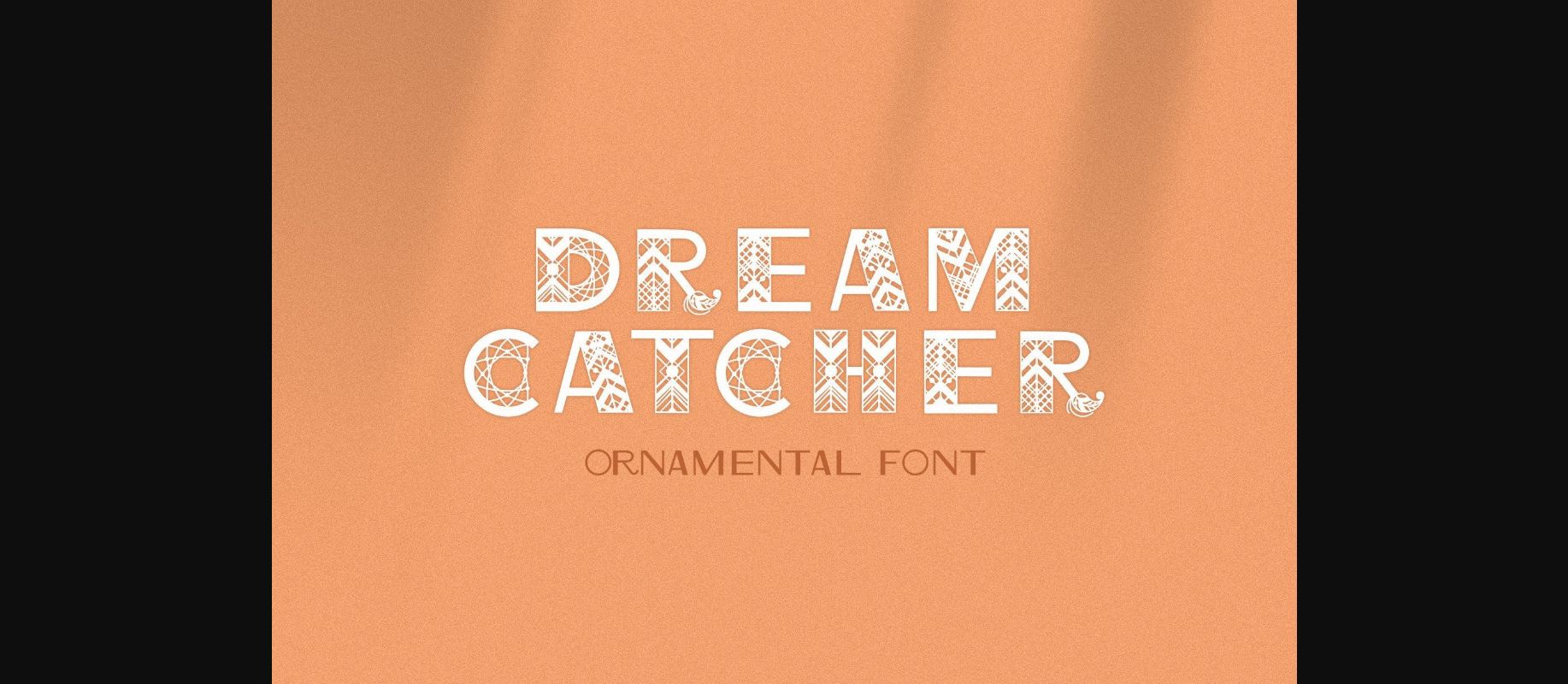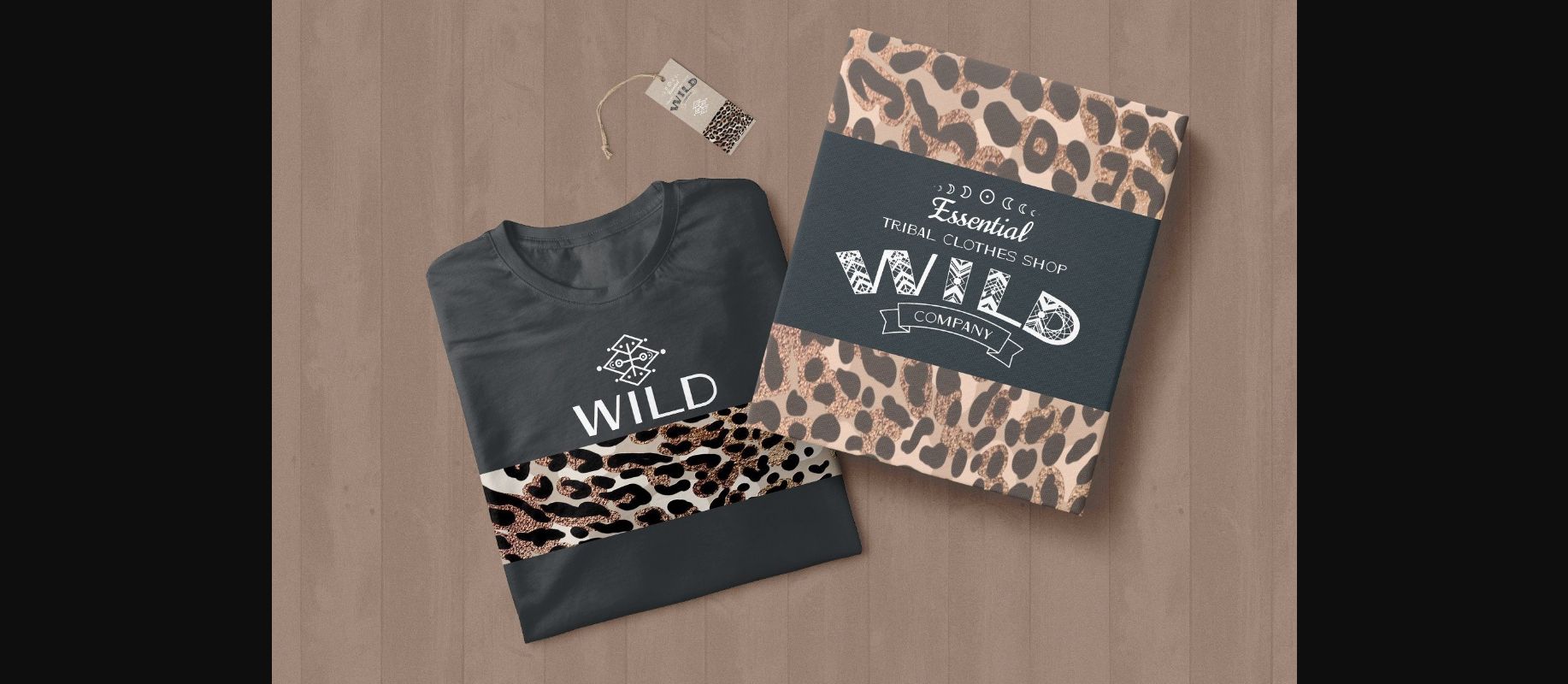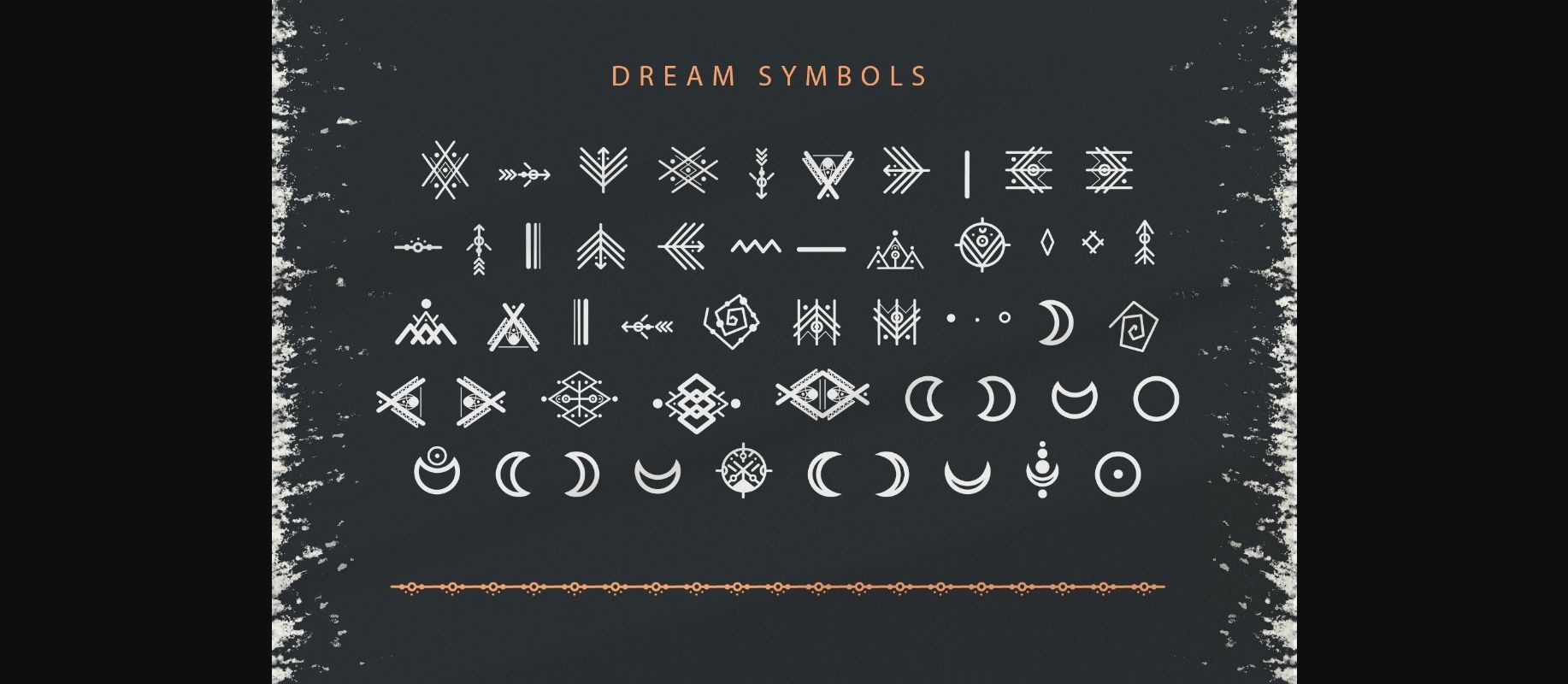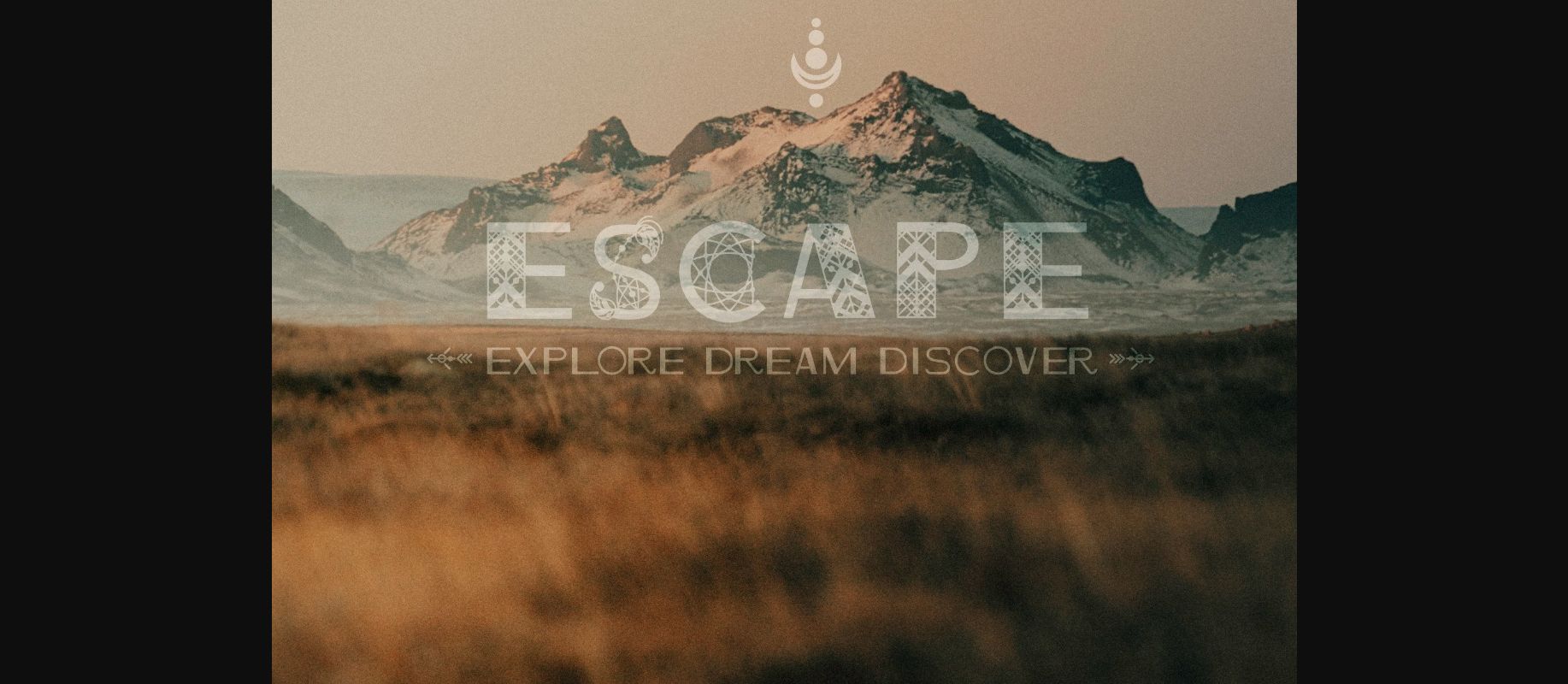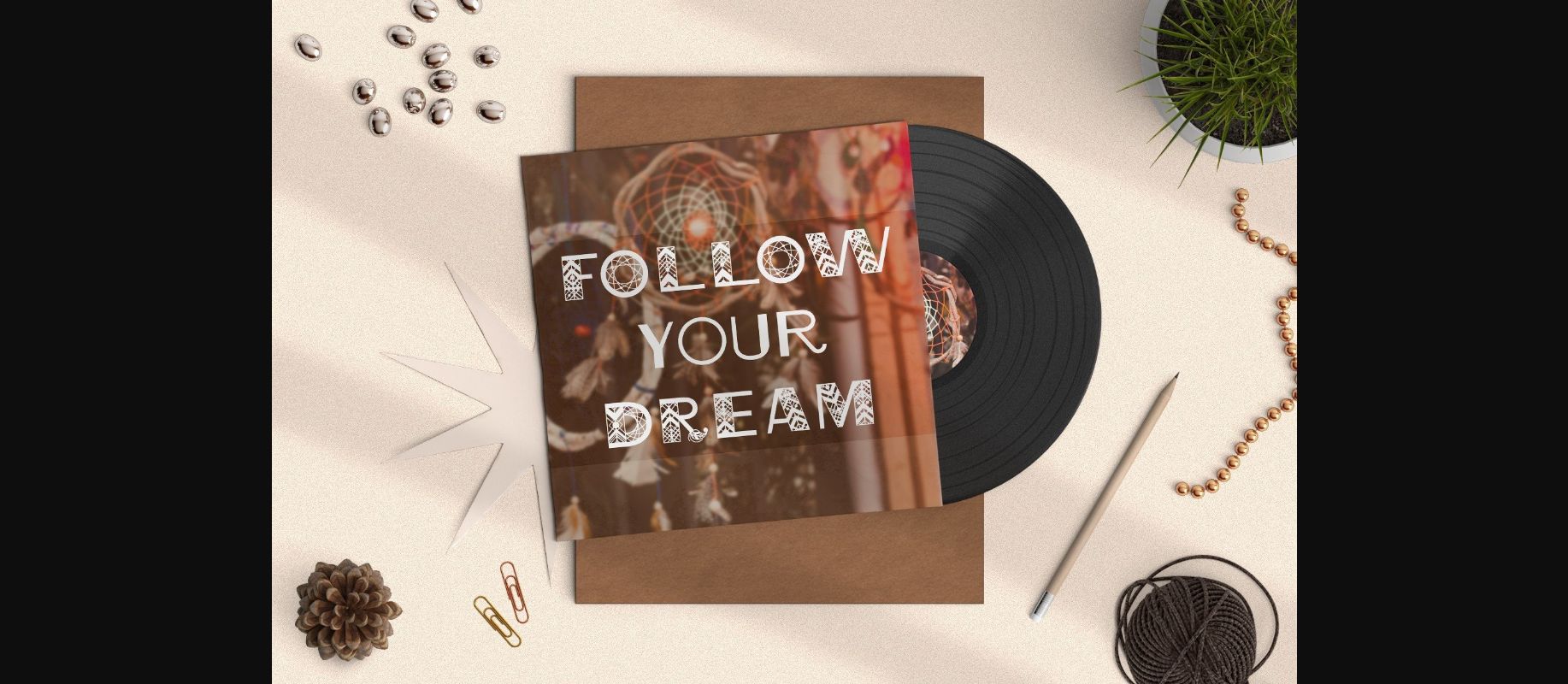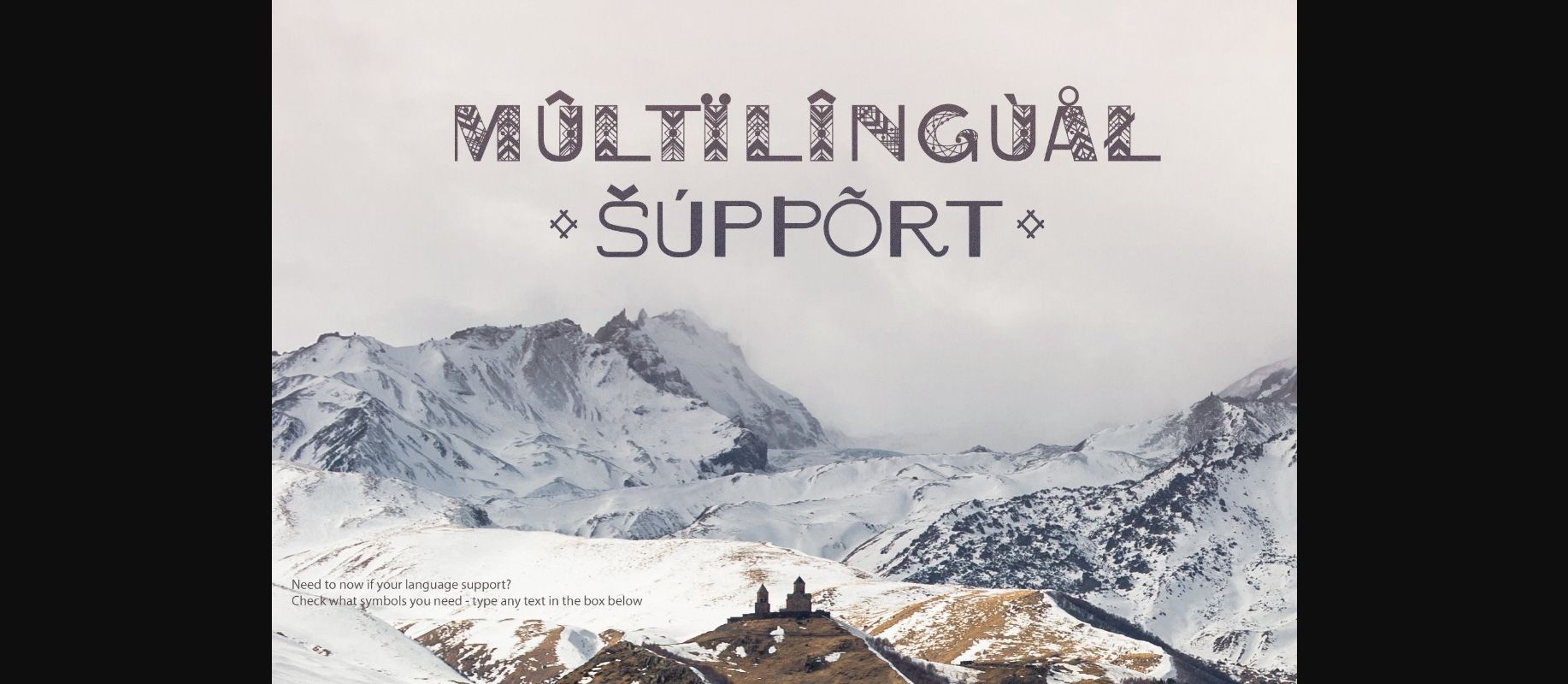
Dreamcatcher Font
About Dreamcatcher Font
Dreamcatcher is a unique and gorgeous decorative font. Its ornamental elements and boho style make this font the perfect choice for all your special projects.